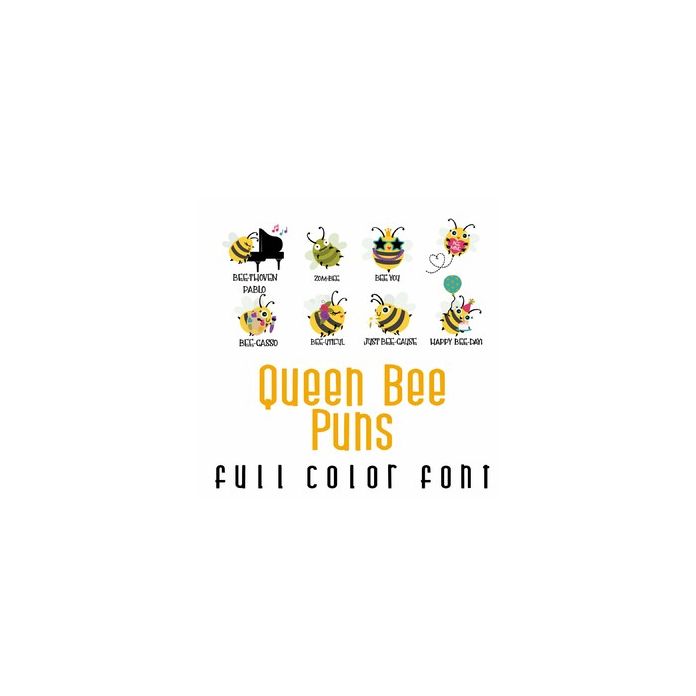
This adorable full-color doodlebat font features adorable bee puns. Perfect for Mother's Day, cards, crafts, gifts, planner stickers, scrapbook pages and more!